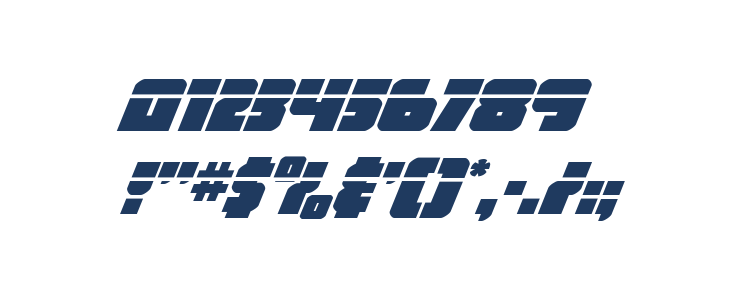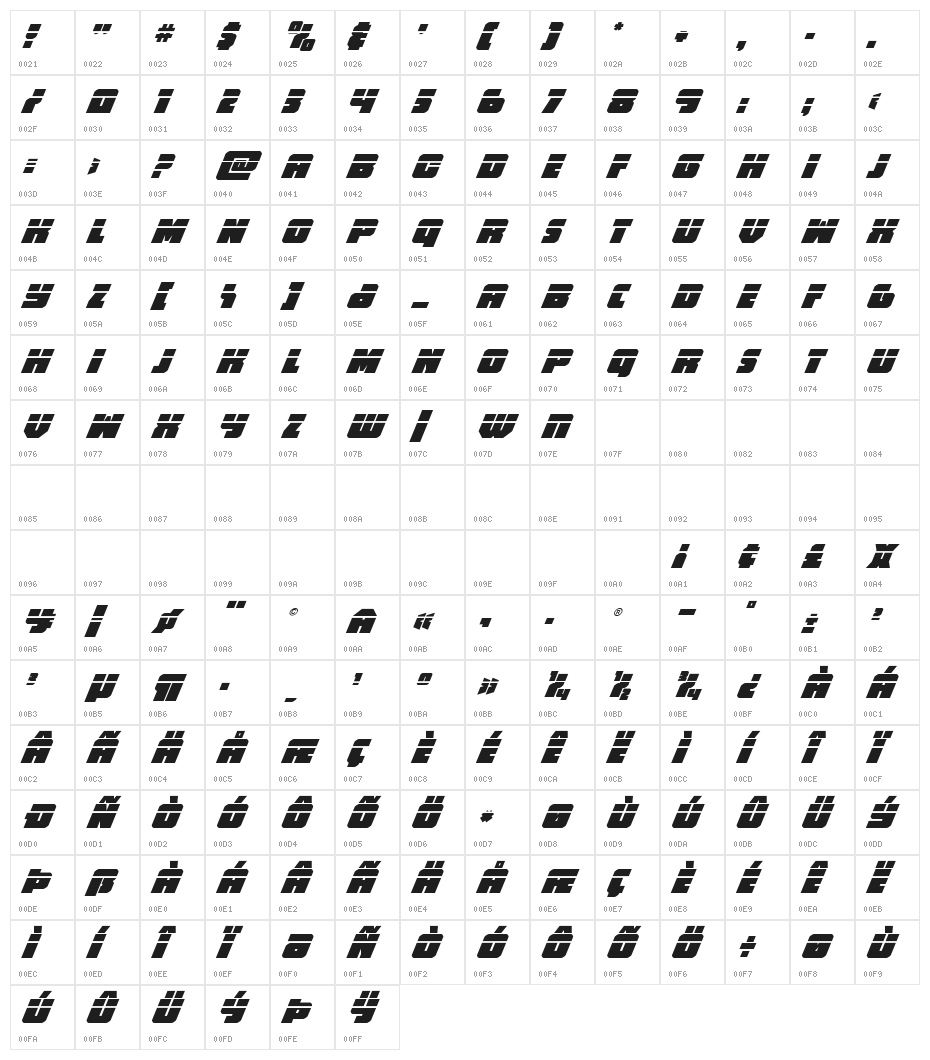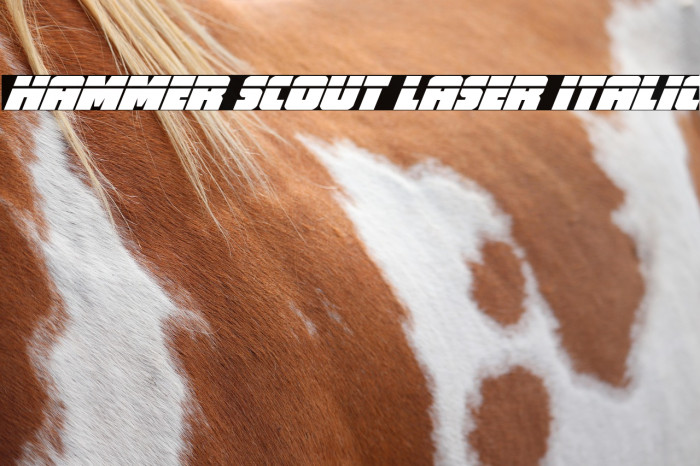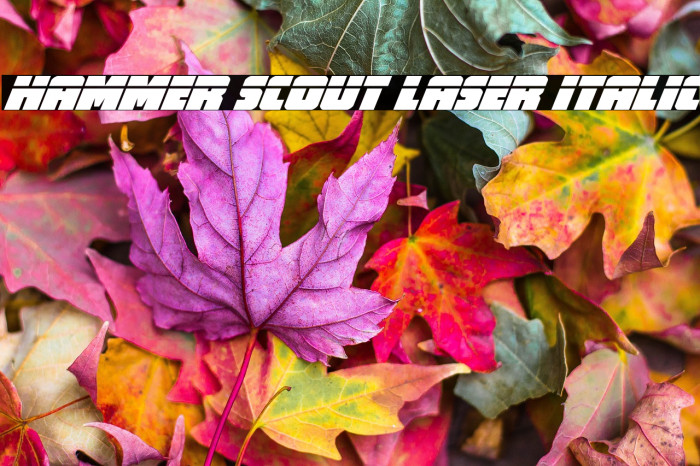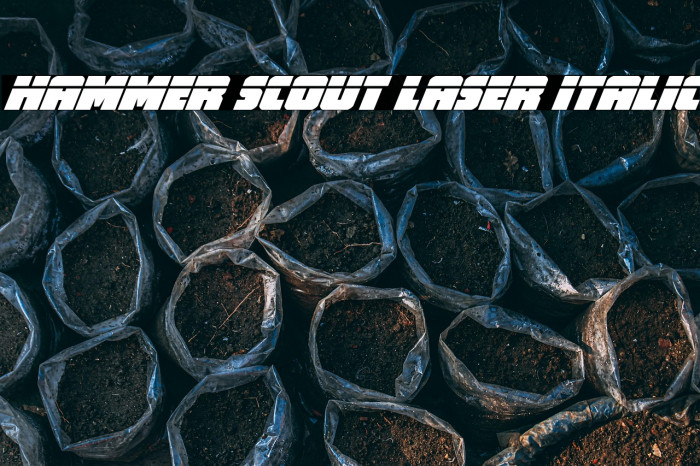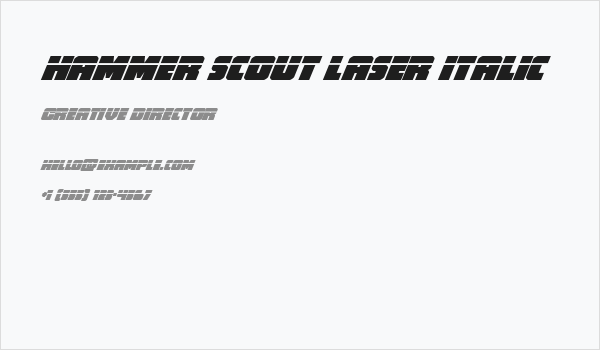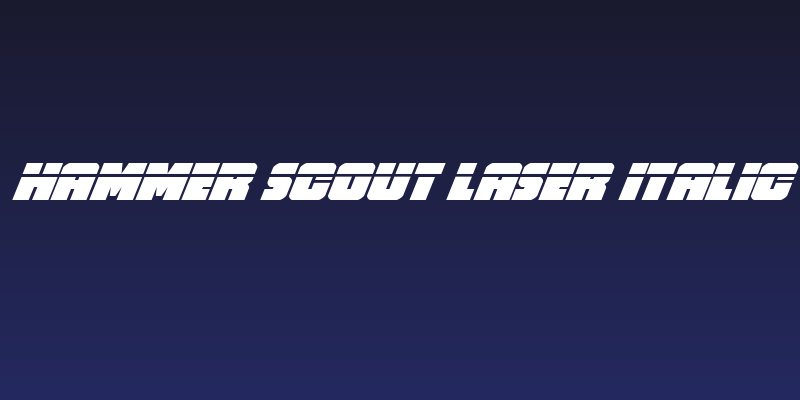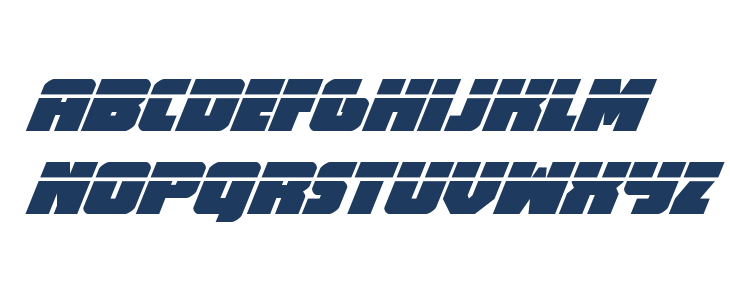
Hammer Scout Laser Italic Font
Hammer Scout Laser Italic Description
This font features a bold, futuristic design with a strong emphasis on angular shapes and sharp edges. The characters are italicized, giving a sense of motion and speed, reminiscent of sci-fi and technology themes. The uppercase letters are particularly striking, with a blocky appearance that commands attention. The numbers and special characters maintain the same bold aesthetic, ensuring consistency across all glyphs. The overall look is dynamic and impactful, making it suitable for projects that require a modern and edgy feel.
Proposed ProjectsIdeal for sci-fi movie posters, technology branding, video game titles, and sports team logos.